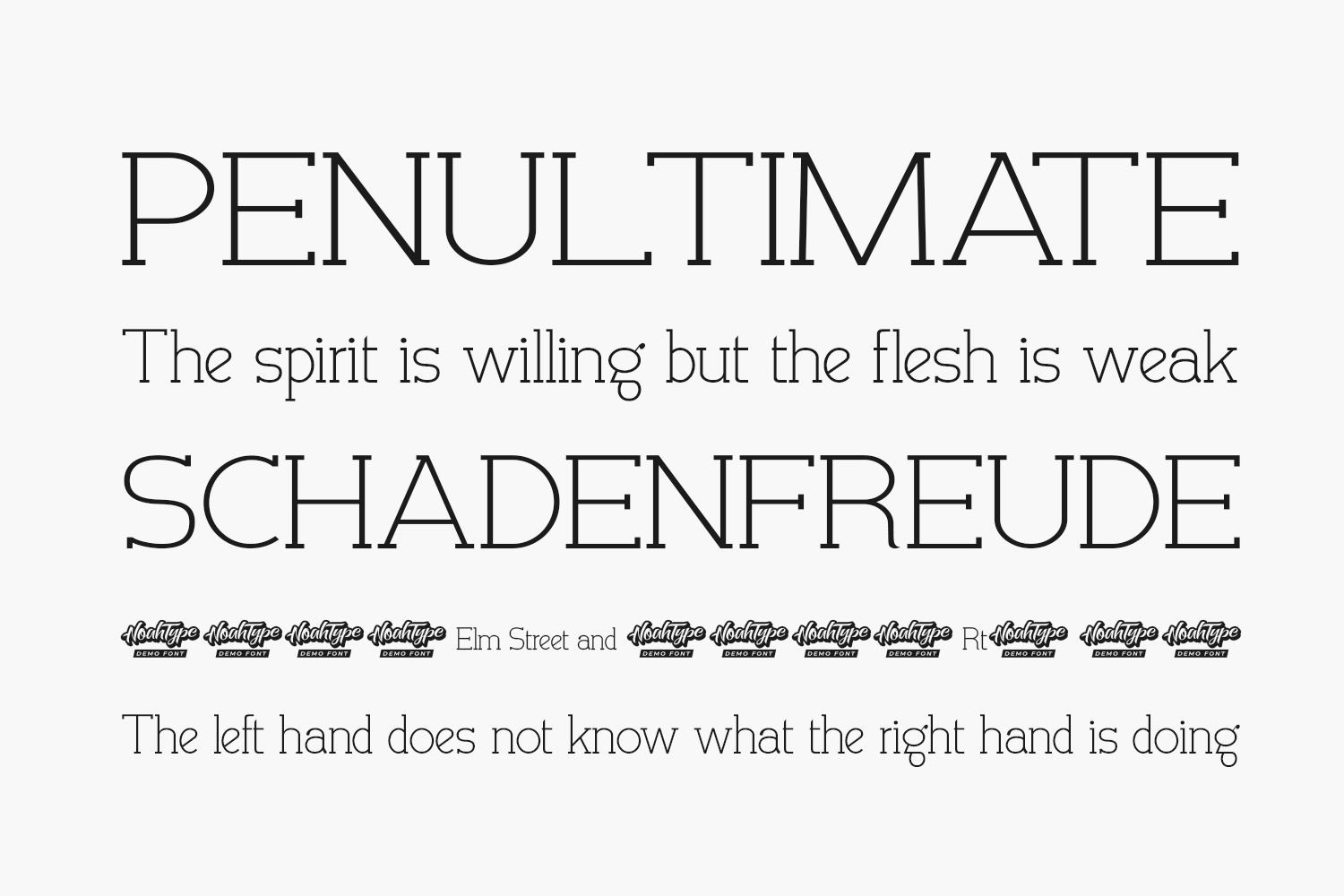
Discover the distinctive Allegation Free Font Family, a serif display font that offers six unique styles: Regular, Italic, Semibold, Semibold Italic, Bold, and Bold Italic. With its versatile appeal, this font is an excellent choice for a wide array of industries, including advertising, clothing brands, cosmetics, fashion, floristry, handicrafts, perfumery, printing, publishing, real estate, restaurants, writing, and more! Choose Allegation Font to make a lasting impression across diverse sectors. Download the font for free if you need it for personal use or purchase the full version for commercial use.
Designed by Noah Type